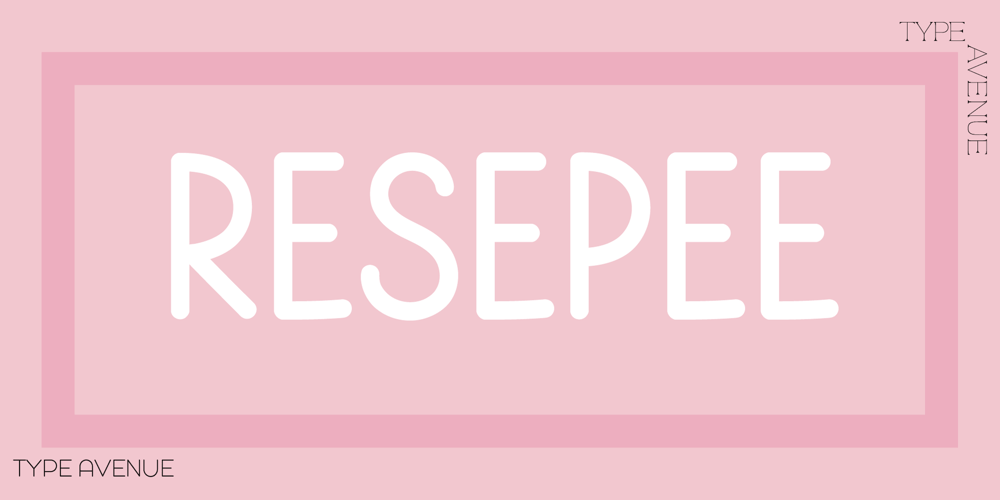
Resepee Font Family was designed by Jess J and published by Type Avenue. Resepee contains 1 styles and family package options. Resepee is a font that is made to look like neat handwriting found in a country homemaker’s cookbook. It’s an all caps font that is perfect for notetaking, labeling or making posters.